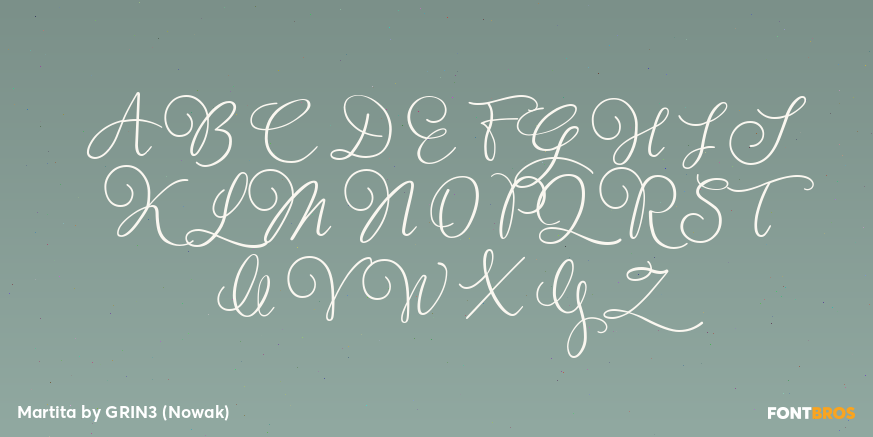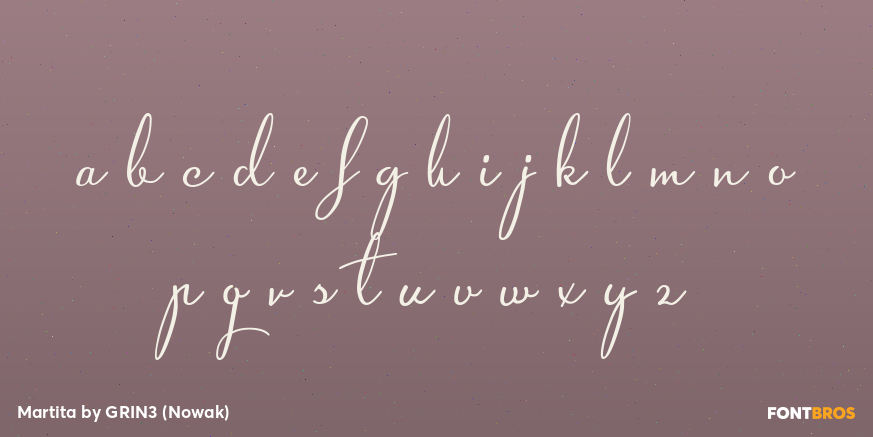
Martita
Font Family by GRIN3 (Nowak)
Martita is an elegant, handwritten, fully connected script with ligatures to help with flow and readability.
Martita can be used for invitations, greeting cards, posters, advertising, weddings, books, menus etc.
Language support includes Western, Central and Eastern European character sets, as well as Baltic and Turkish languages.